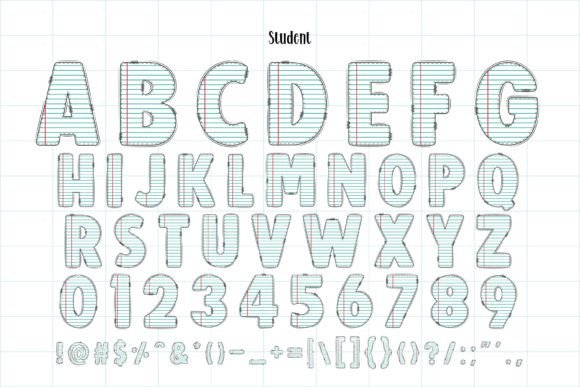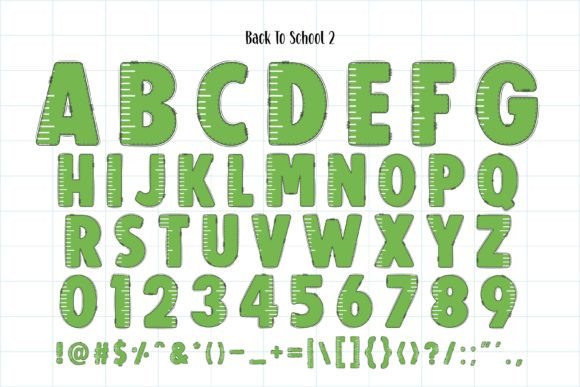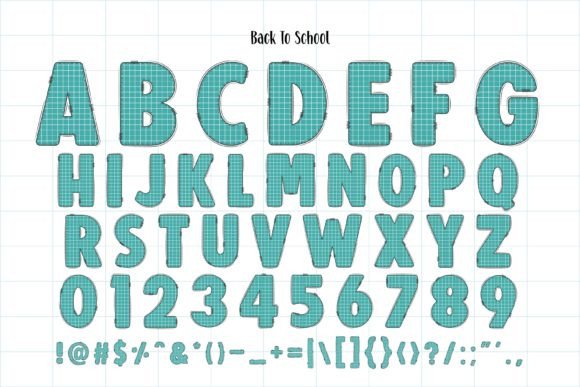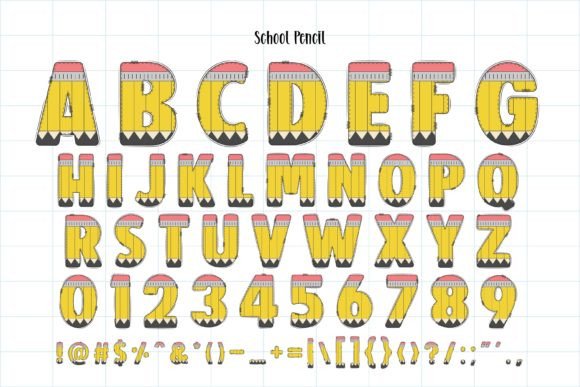
Getting Ready for the New School Year with Style
As designers, we’ve all had those moments where we’re brainstorming ideas and suddenly, a spark of creativity strikes. It’s like a burst of inspiration that leaves us excited to dive into our next project. For me, it was while thinking about the new school year that I stumbled upon the perfect font to capture the playful essence of learning – the Back to School Font.
This thick-lettered, one-of-a-kind font is specifically designed to bring a smile to your face, making it perfect for projects related to children’s games, school, and education. With its vibrant colors and fun design, the Back to School Font is an invaluable addition to any designer’s toolkit. Whether you’re creating a flyer for a school event or designing a game for kids, this font is sure to bring a fresh and playful touch to your work.
Key Features of “Back to School Font”
- Unique Characteristics: Distressed and vintage design elements, ideal for educational and summer-themed projects
- Font Style: Comes in 3 styles: Regular, Italic, and Bold
Designer Review: Back to School Font
I recently had the chance to work with the ‘Back to School Font’ and I’m excited to share my honest review with you.
- The font’s playful and youthful vibe makes it perfect for educational materials, school projects, and even social media posts.
- The bold and italic styles add a nice touch of personality to the font, making it more engaging and fun to use.
- The font’s legibility is good, making it easy to read, even at smaller font sizes.
- The font’s design may be too casual for formal or professional projects, which could limit its use in certain contexts.
- The font’s lack of sophistication and elegance may not appeal to designers looking for a more refined or high-end look.
- The font’s limited character set and language support may be a problem for designers working on international projects.
Overall, I think the ‘Back to School Font’ is a great choice for designers looking for a fun and playful font for educational or casual projects. While it may not be suitable for every project, its unique personality and engaging style make it a great addition to any designer’s toolkit.
Getting the Most Out of the Font
To get the most out of the Back to School font, try experimenting with different font sizes and styles. Use the font in conjunction with other design elements, such as images and graphics, to create a cohesive look.
Alternatives to Back to School Font
Great Vibes is a modern, cursive font ideal for creating a playful and friendly atmosphere. It’s suitable for posters, flyers, and social media graphics where you want to convey a sense of approachability and warmth.
Compared to Back to School Font, Great Vibes is more polished and refined, making it a great choice for designs that require a touch of sophistication.
Pacifico is a beautiful, elegant font that evokes the feeling of a tropical paradise. It’s perfect for creating invitations, menus, and other materials that require a sense of luxury and refinement.
Pacifico is more formal and sophisticated than Back to School Font, making it a great choice for designs that require a touch of class.
Playfair Display is an elegant, high-end font that’s perfect for creating attention-grabbing headlines and titles. It’s suitable for luxury brands, fashion magazines, and other high-end materials.
Compared to Back to School Font, Playfair Display is more formal and luxurious, making it a great choice for designs that require a touch of opulence.
Carolyna Pro is a modern, elegant font that’s perfect for creating beautiful and sophisticated designs. It’s suitable for invitations, menus, and other materials that require a touch of refinement and elegance.